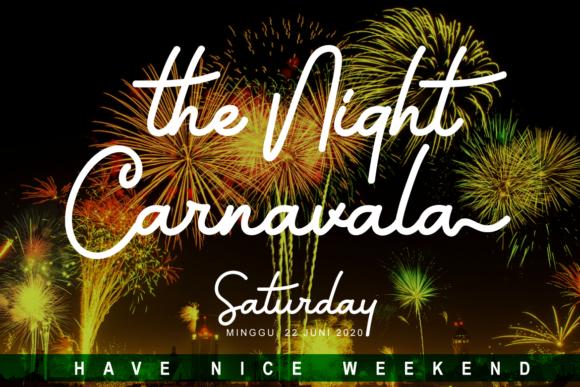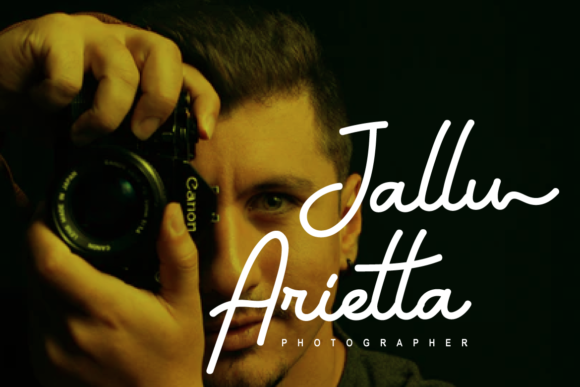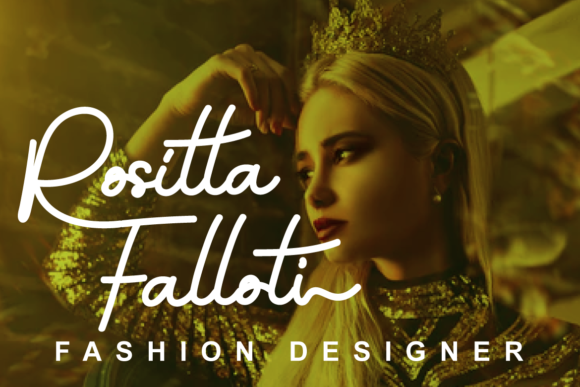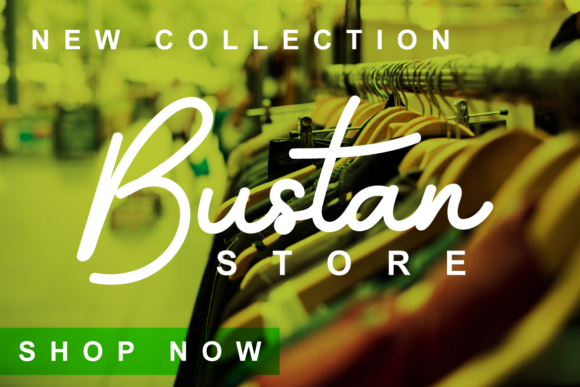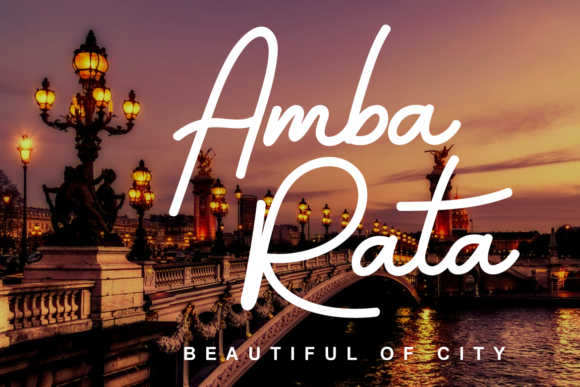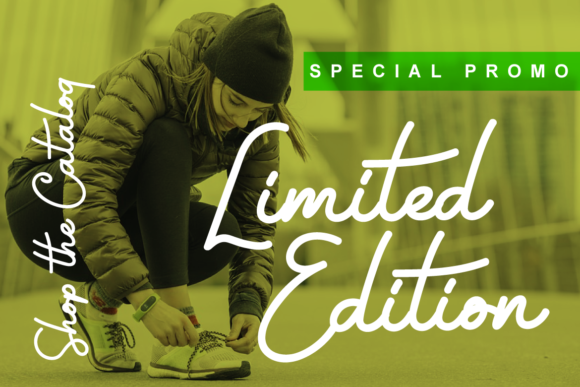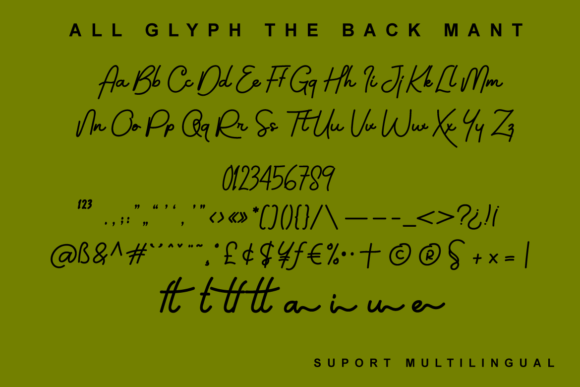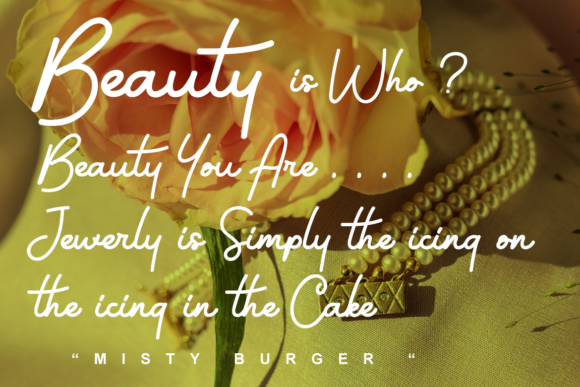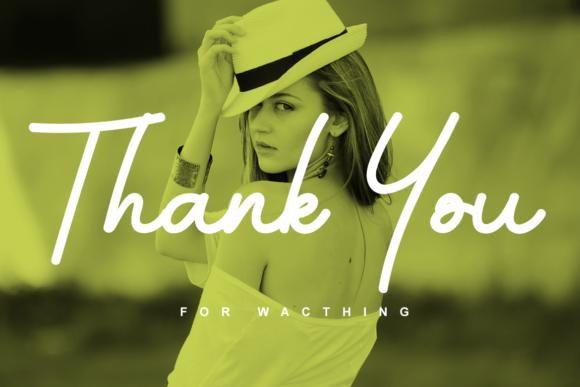
The Back Mant Font
About The Back Mant Font
The Back Mant is a sweet, flowing and thin lettered script font. Featuring characters that dance along the baseline, this font will add a luxury spark to any design project that you wish to create!